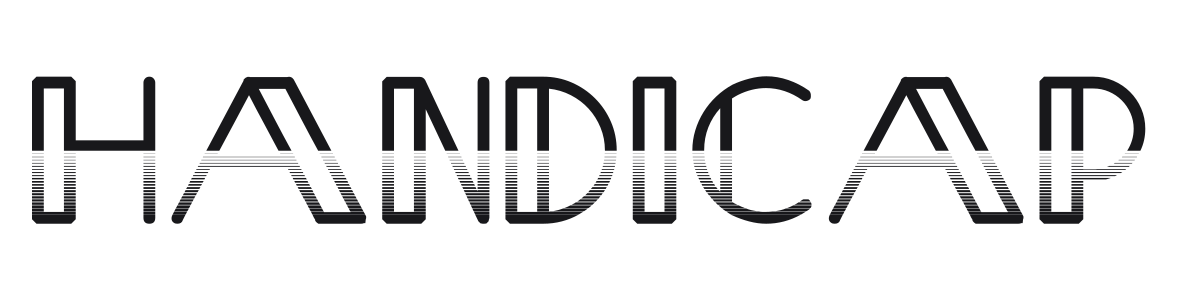
Handicap
Handicap is a wide geometric display sans built around a horizontal striping effect that slices through each letter like light through a blind. The gradient-band treatment shifts from solid black at the cap line to near-white at the baseline, giving static text a sense of downward motion. It makes a strong impression at large sizes in posters, titles, and anything that benefits from a raw, experimental edge.